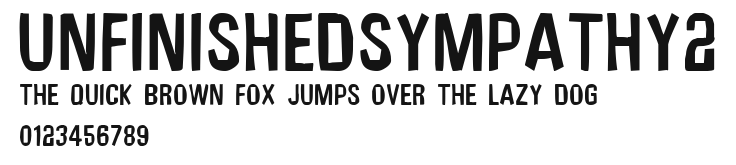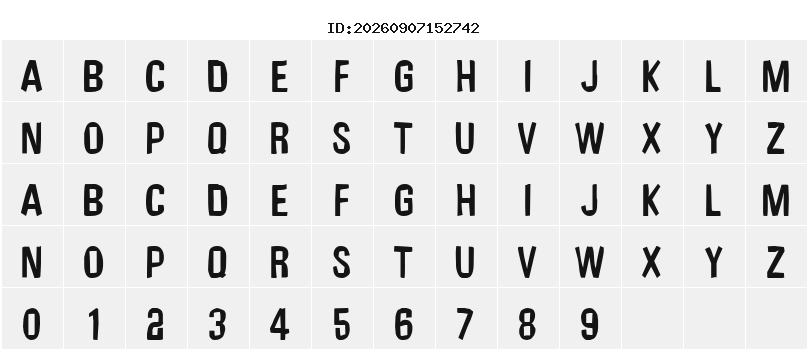
UnfinishedSympathy2 Preview
• Font Name: UnfinishedSympathy2
• Font ID: UnfinishedSympathy2
• Full Font Name: UnfinishedSympathy2
• Version: 2
• PostScript Name: UnfinishedSympathy2
• Character Count: 70
About UnfinishedSympathy2.ttf
UnfinishedSympathy2.ttf is a modern, elegant sans-serif font designed for ultimate readability and visual harmony. Perfect for branding, headlines, web design, and print materials.